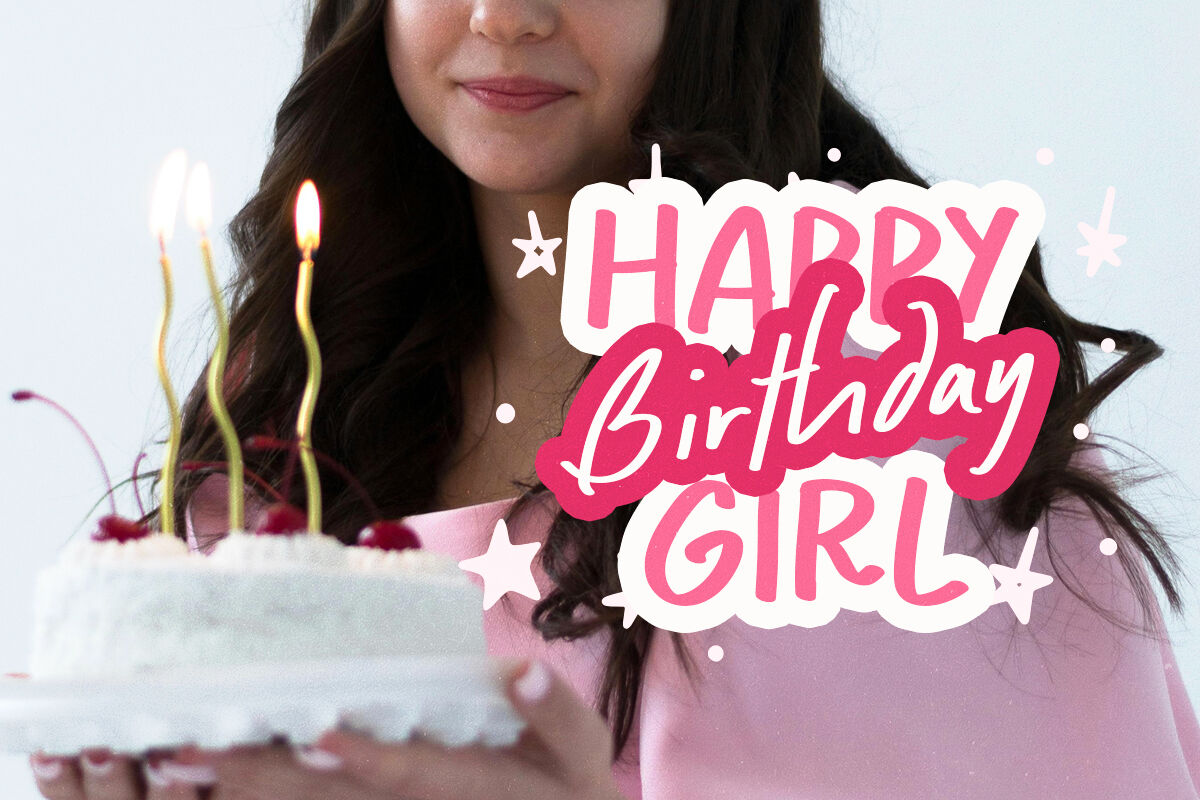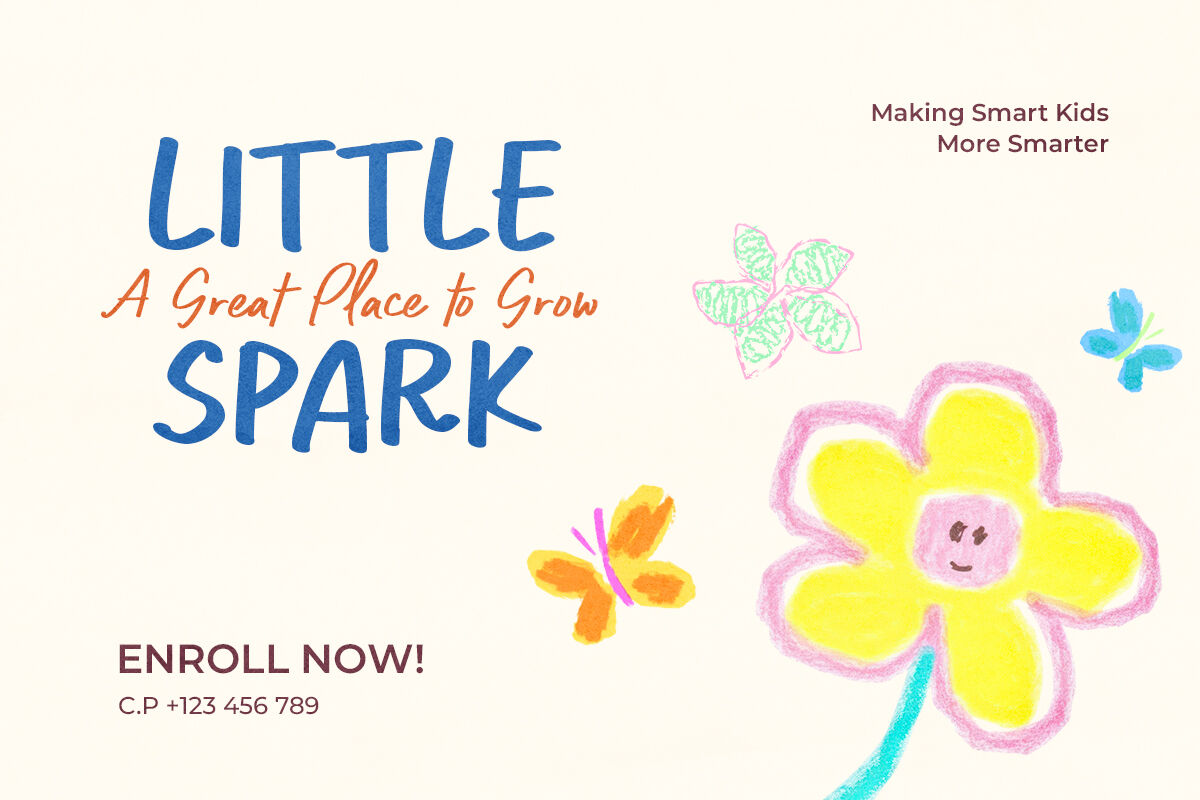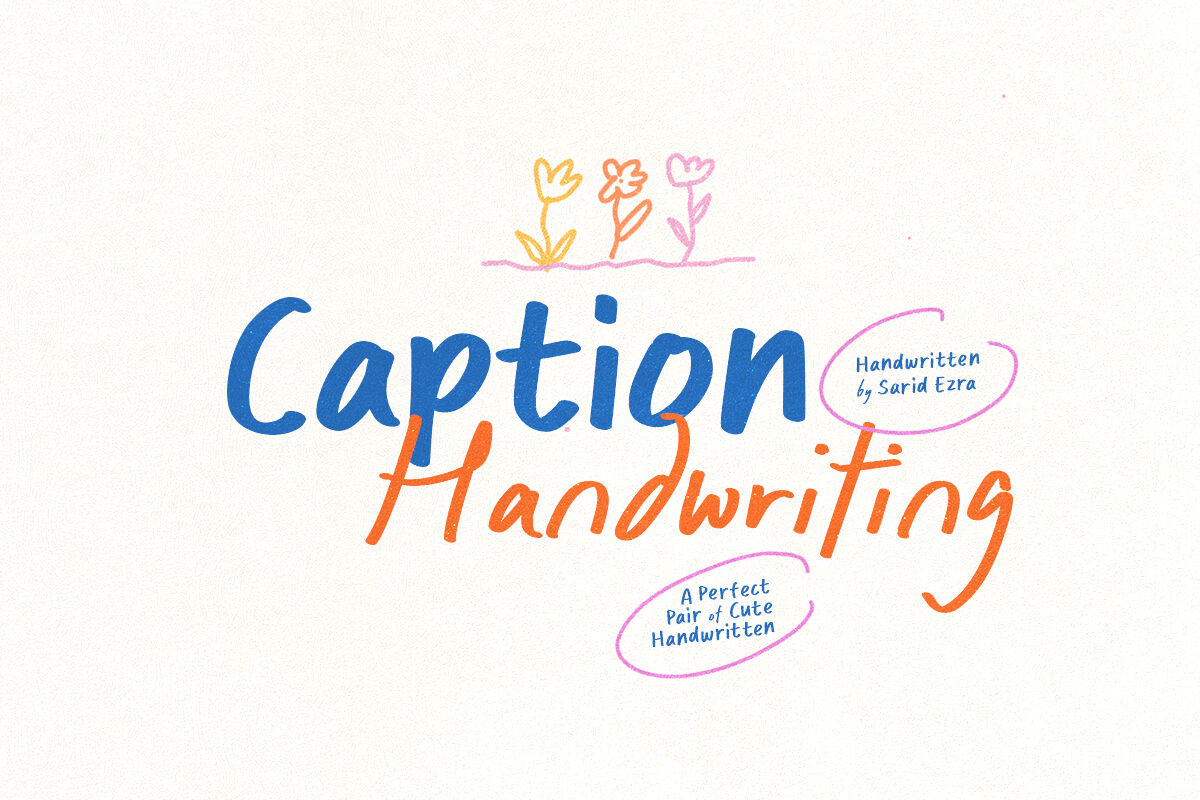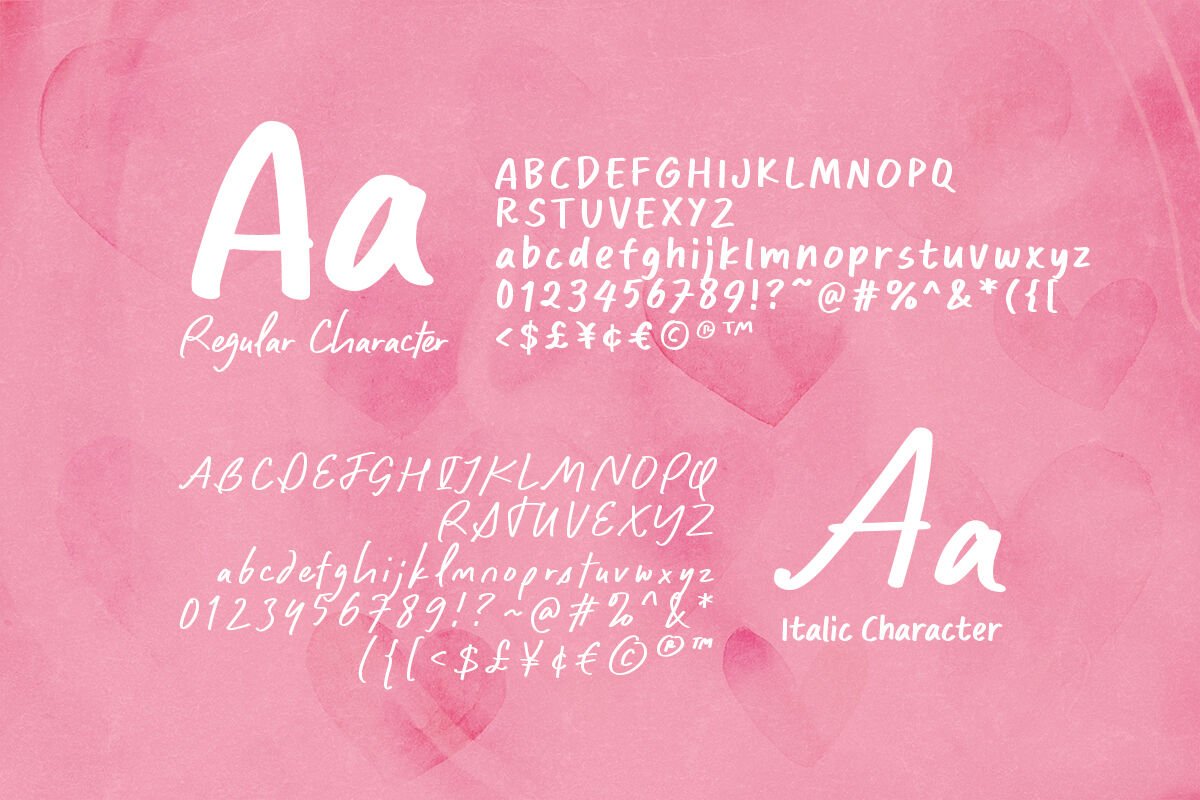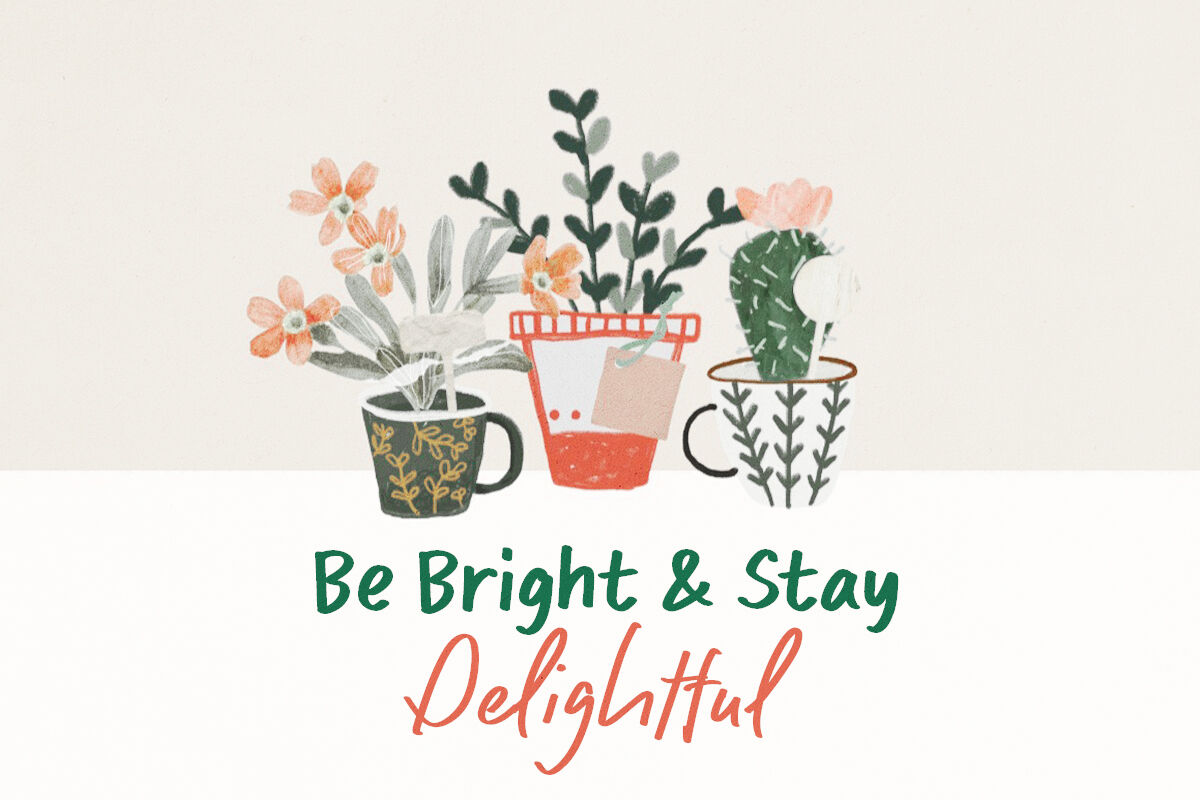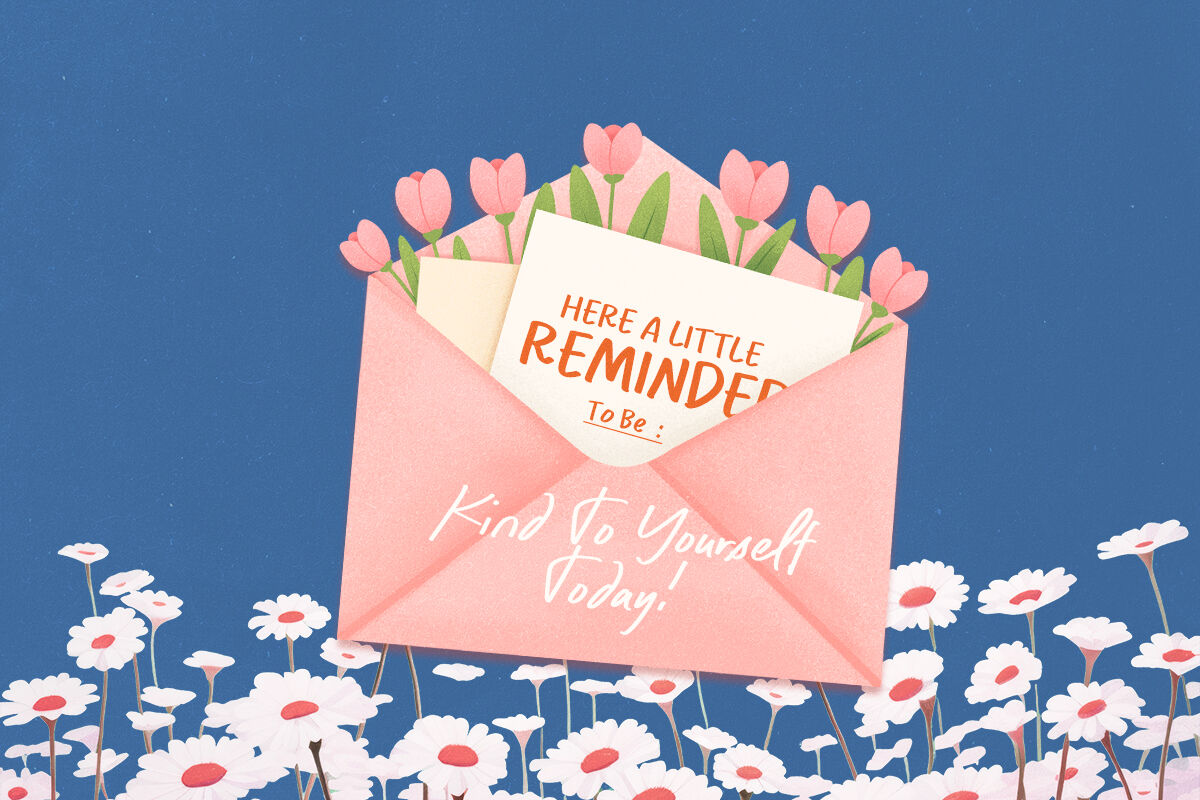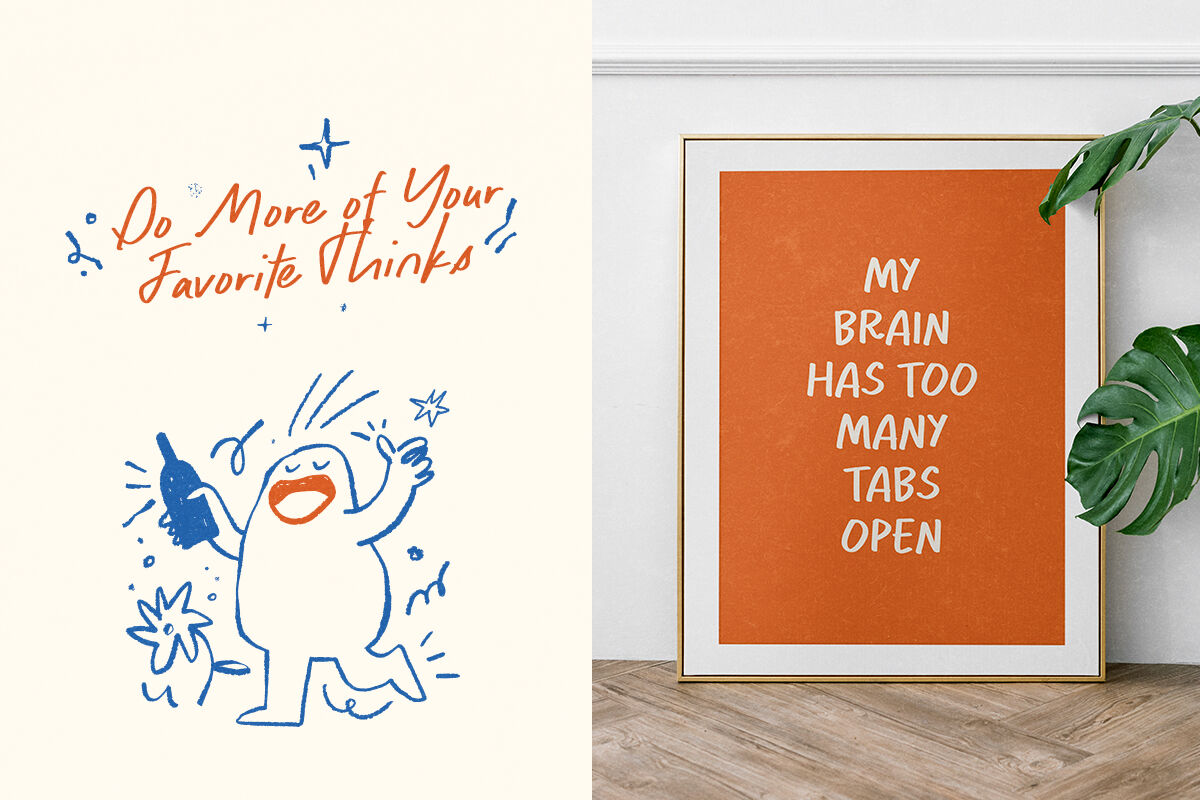
Caption Handwriting - Cute Font Duo
Caption Handwriting is a cute handwritten font with bold regular style and italic signature script. You can use this font for logo, branding, especially for cute quotes. This font duo is suitable for your caption or notes to your design. This font also support multi language.
Caption Handwriting Italic
Caption Handwriting Regular